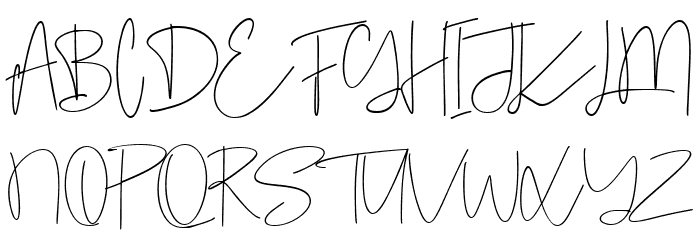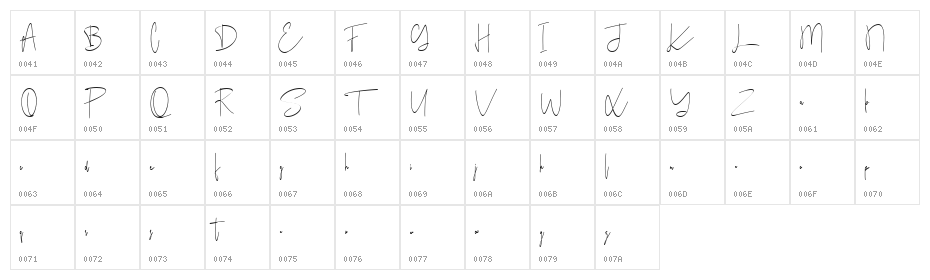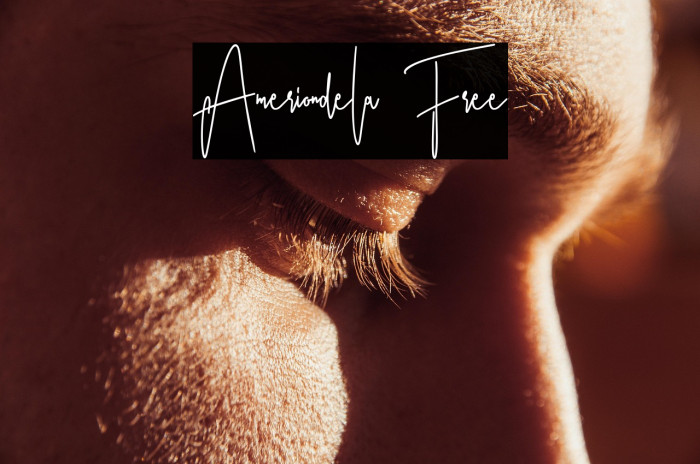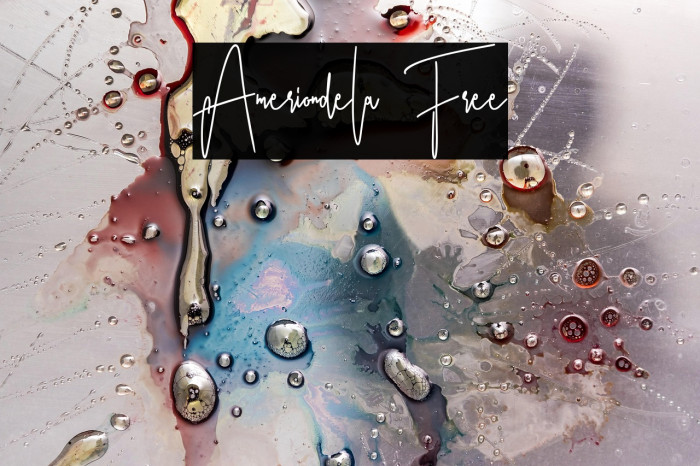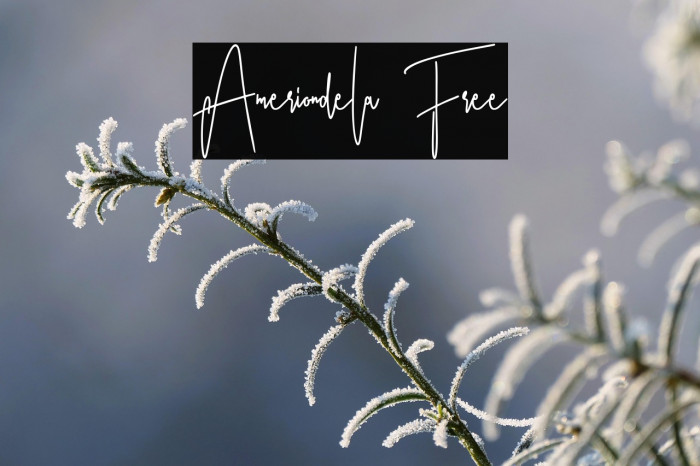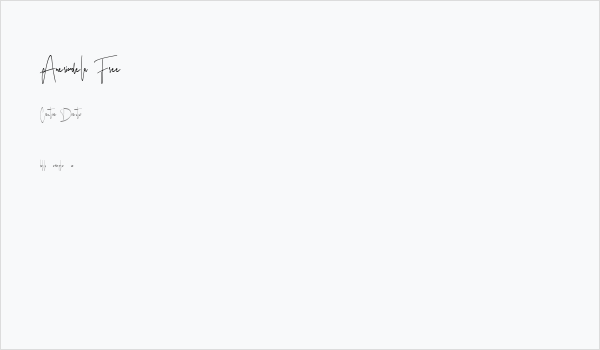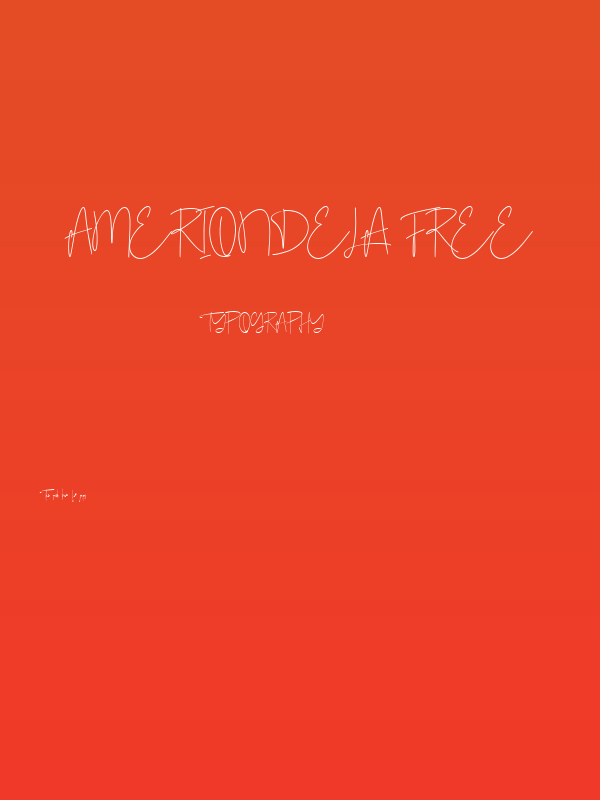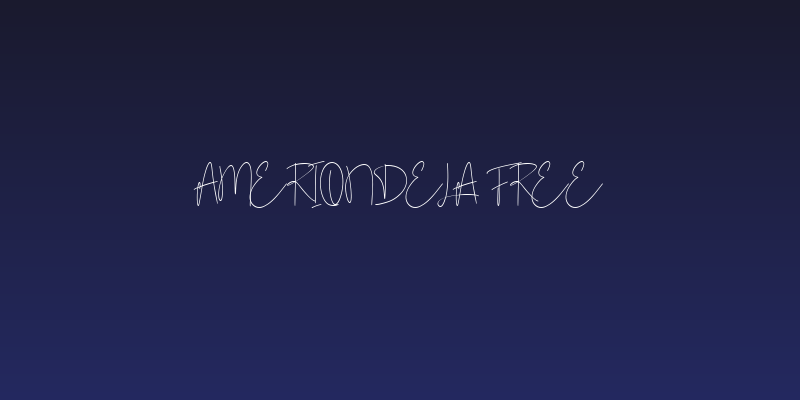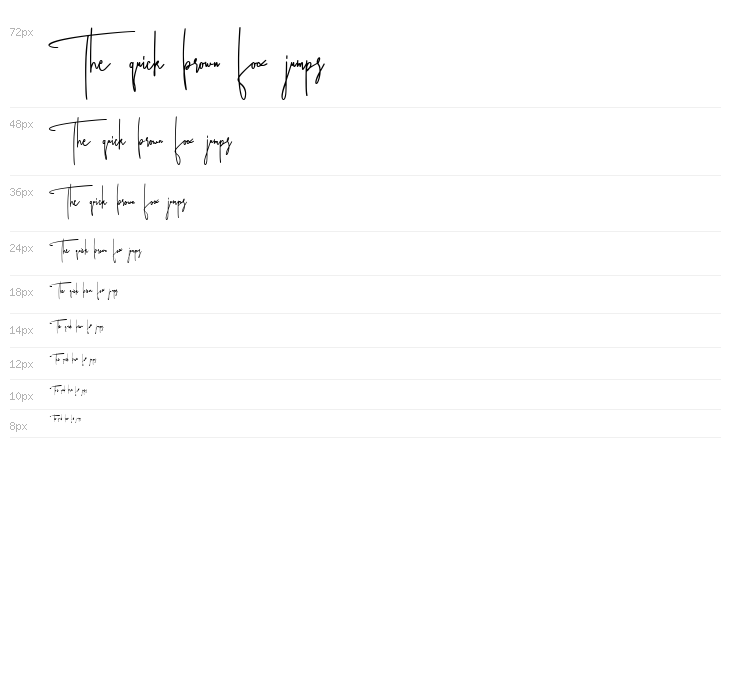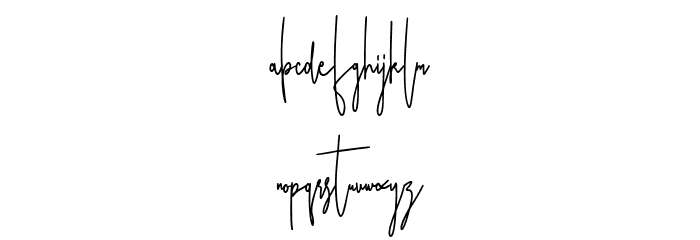
Ameriondela Free Font
Ameriondela Free Description
This font features a unique handwritten style with a playful and artistic flair. The uppercase letters are tall and slightly narrow, with exaggerated loops and curves that give them a whimsical appearance. The lowercase letters maintain a consistent flow, with some characters extending below the baseline, adding to the font's dynamic nature. The strokes are thin and delicate, contributing to an airy and light feel. This font is perfect for creative projects where a personal touch is desired, such as invitations, greeting cards, or artistic branding. Its distinctive style makes it stand out, while still being legible and versatile.